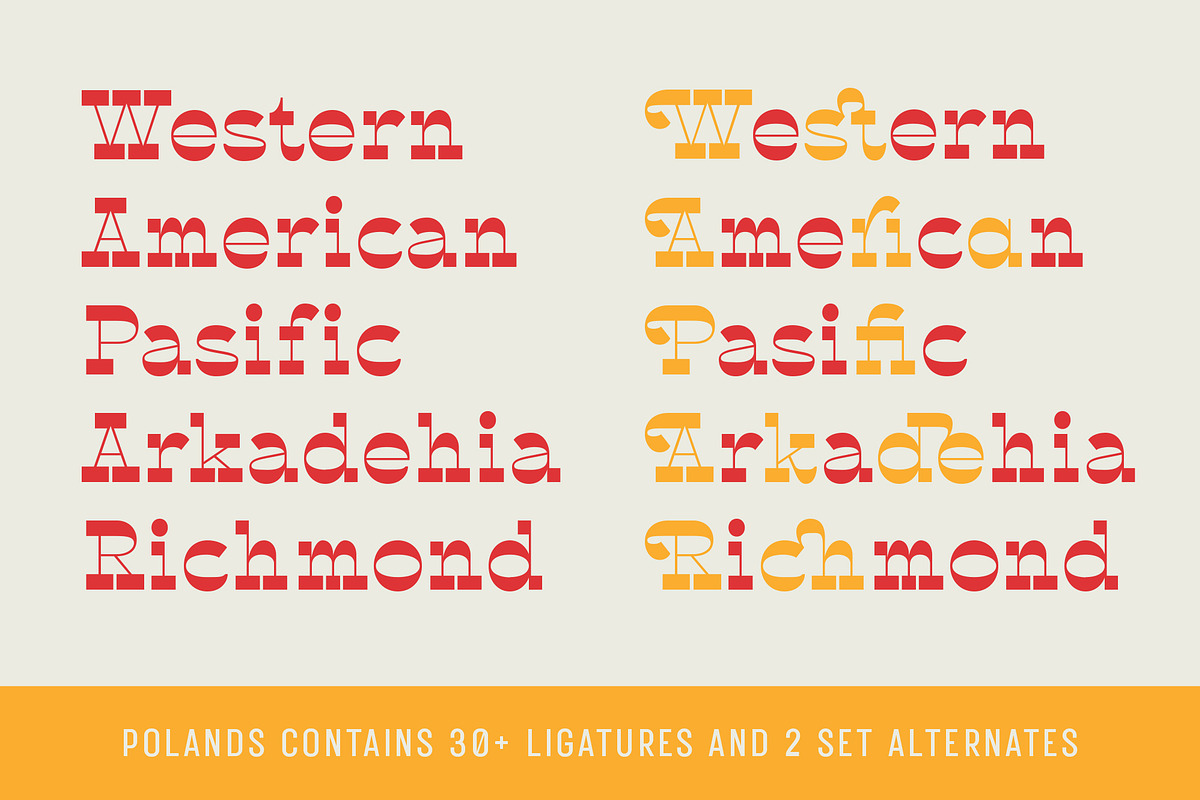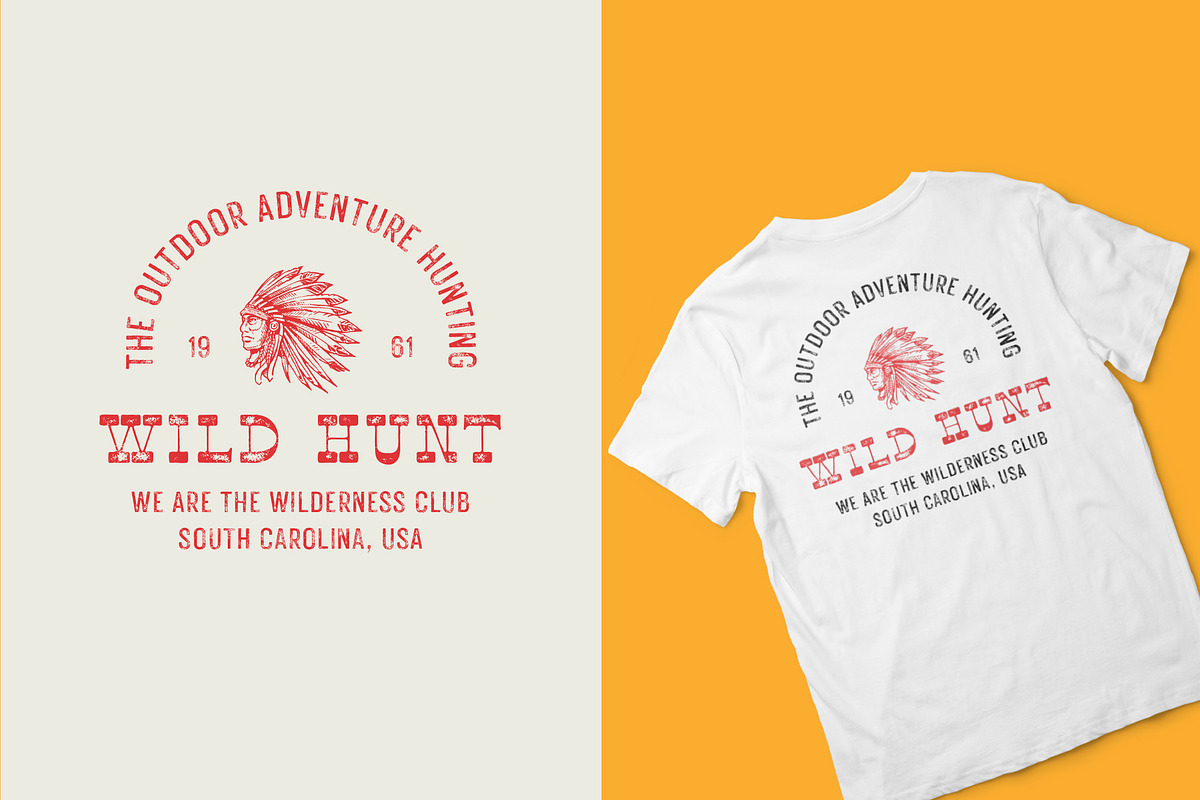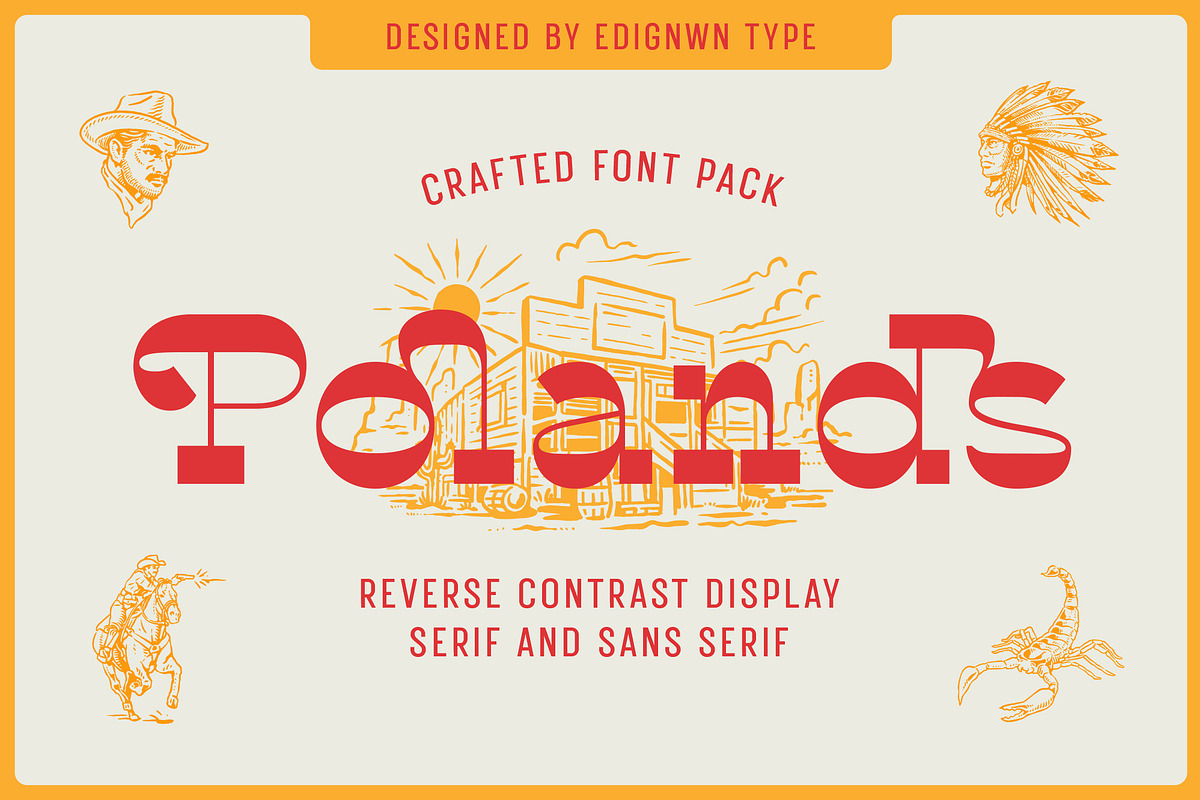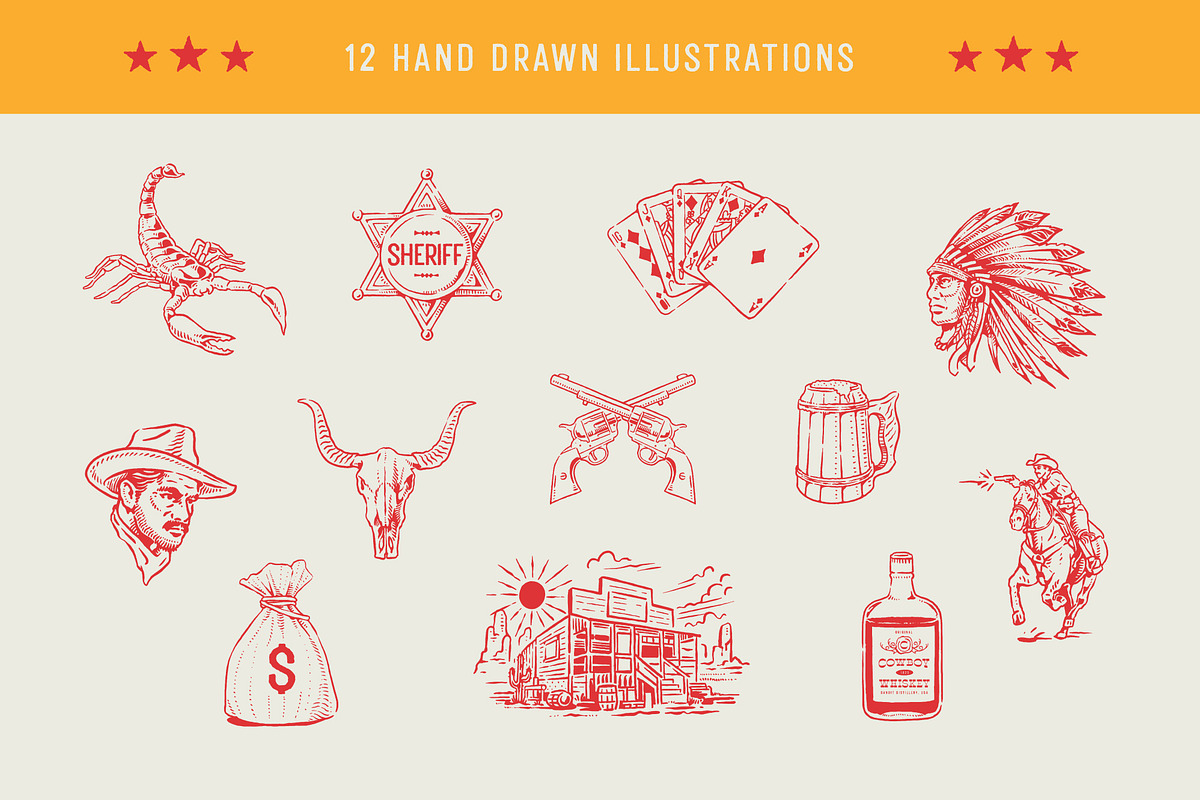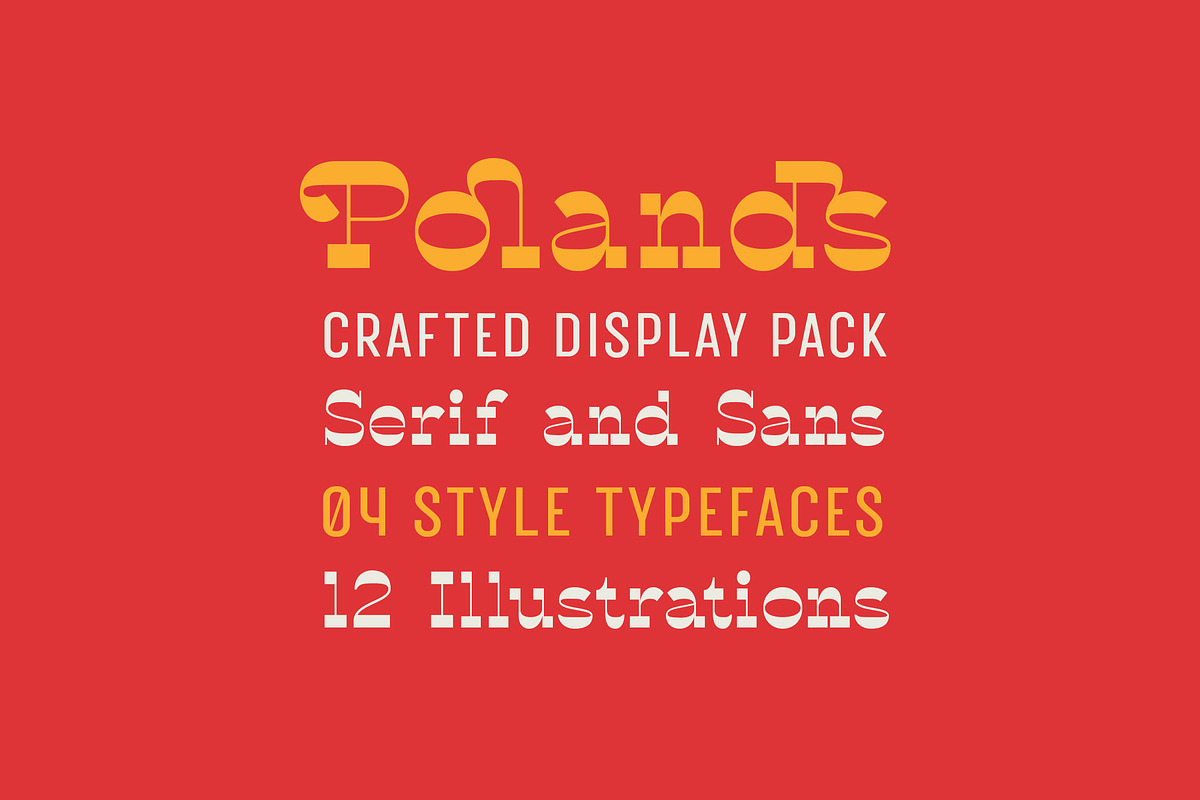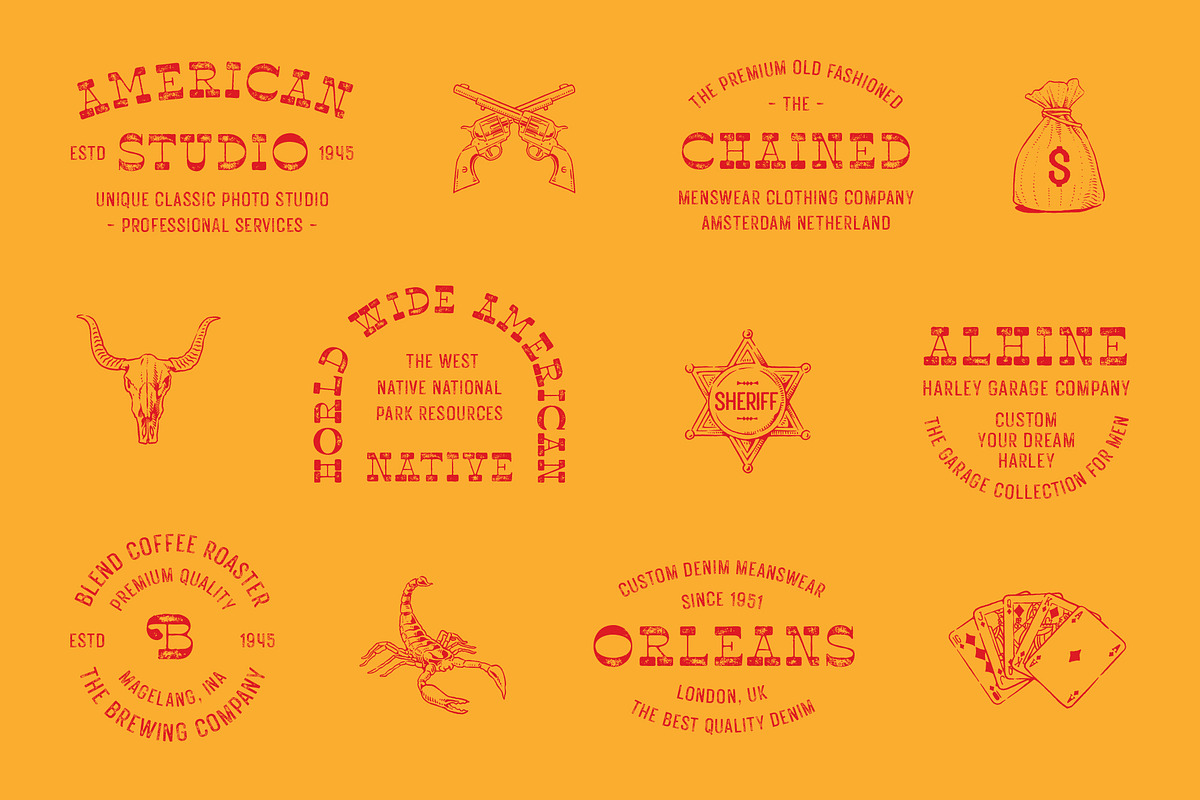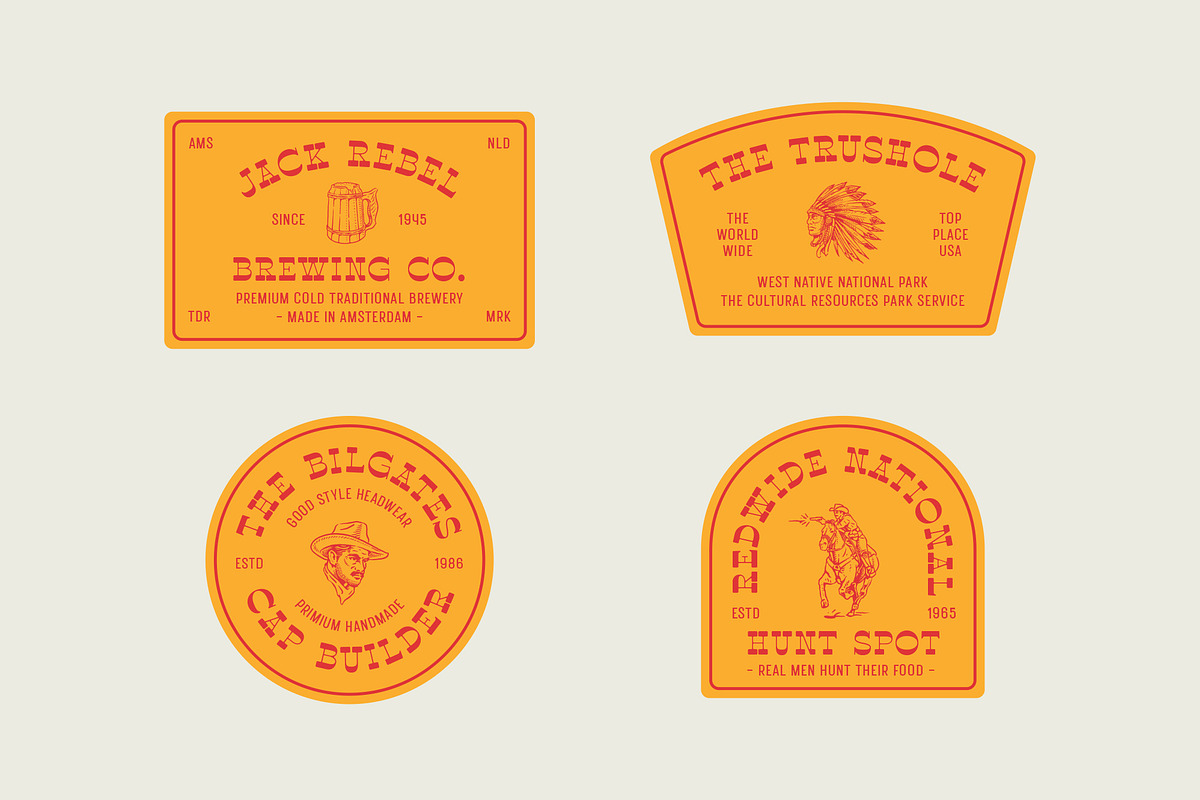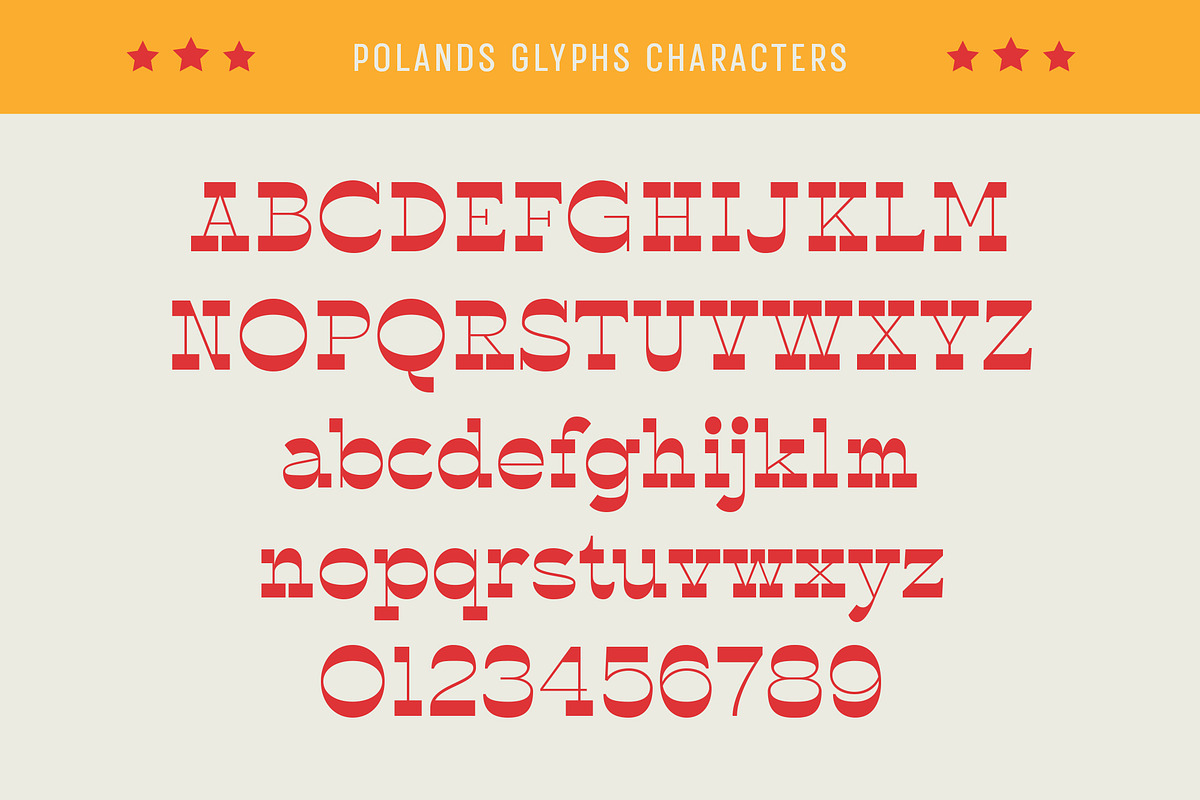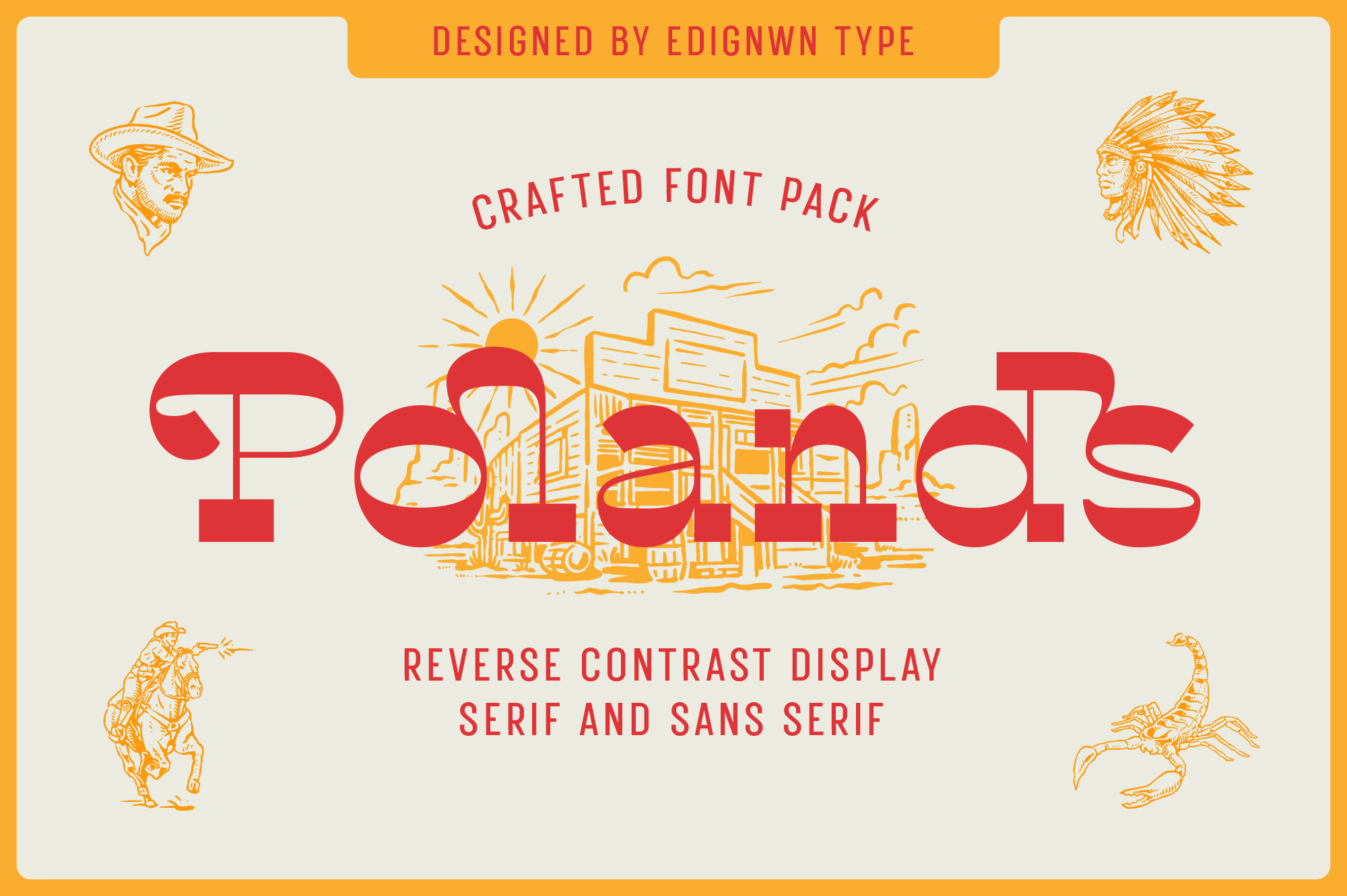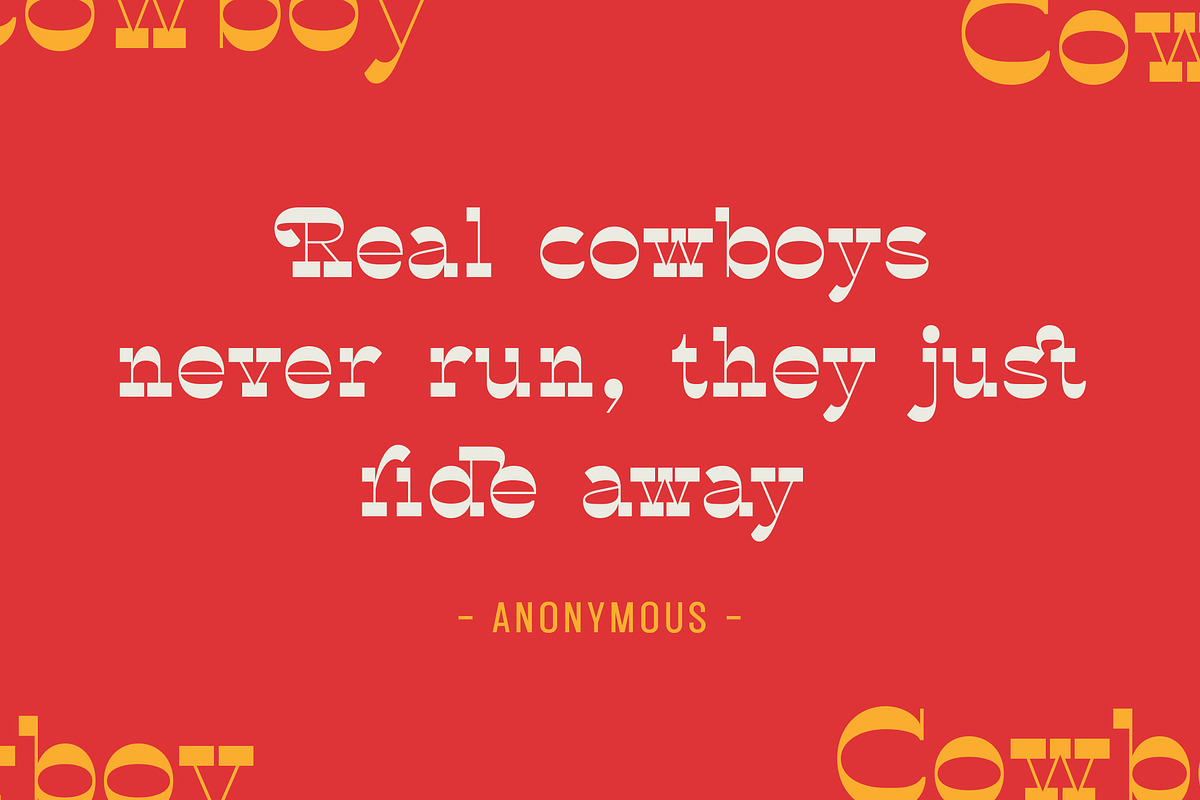
Polands - Display Font
The font collection is called "Polands", it is a reverse contrast display for crafted fonts. These collections contain serif and sans serif font. Every font comes with 4 style typefaces (regular, rounded, rough and textured). This slab serif font includes some alternates and ligatures. The Polands matches apply in some designs such as the logo, poster, label, badge, packaging, t-shirt, branding, quotes and more custom design.
Polands features :
- 4 style typefaces (regular, rounded, rough and textured)
- Uppercase, lowercase, numeral, symbol, punctuation, 2 set alternates and 38 ligature in slab serif font
- All-caps, numeral, symbol and punctuation in sans serif font
- 12 illustrations in dingbat font